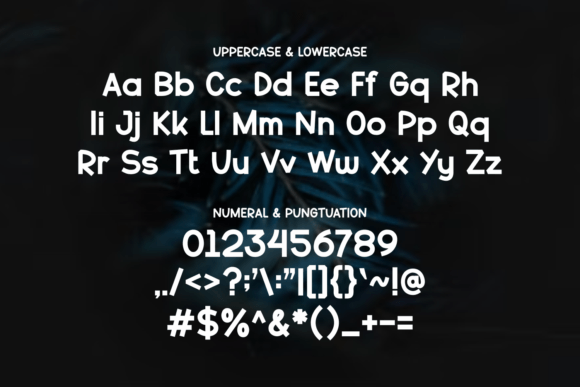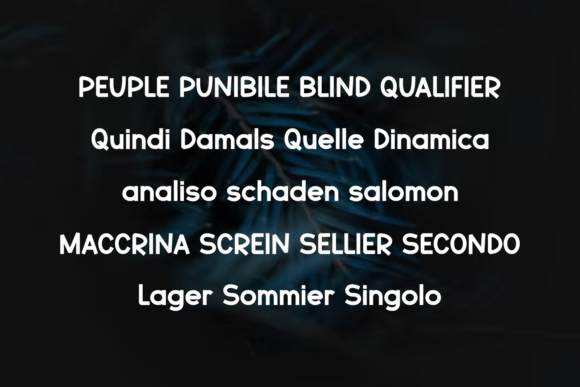
The Ultimate Guide to Bruks Font: Elevate Your Designs with this Modern Display Font
I’ll never forget the time I was working on a project for a client who needed a bold, eye-catching font to make their brand stand out. I scoured the internet for hours, trying out different fonts, but nothing seemed quite right. That was until I stumbled upon Bruks Font. This cool and modern display font has been a game-changer for my designs, and I’m excited to share its awesomeness with you! 😊
An Honest Review of Bruks Font
What I Love About Bruks Font ✨
- 💥 **Versatility**: No matter the topic or theme, Bruks Font seems to fit right in. Whether I’m designing a logo, a brochure, or a social media post, this font elevates my creation.
- ✅ **Readability**: Despite being a display font, Bruks is surprisingly readable, even at smaller sizes.
- 🎨 **Customization**: With its range of OpenType features and glyphs, I can experiment with different styles and variations to match my design mood.
- ⚠️ **Limited use for body text**: While Bruks is amazing for headlines and titles, it’s not the best choice for longer blocks of text. Stick to a more traditional font for those sections.
- 🤔 **Some characters may require manual kerning**: Depending on the specific characters used, manual kerning might be necessary to achieve optimal spacing.
The Story Behind Bruks Font
Bruks Font was designed with the goal of creating a versatile, modern display font that could be used across various design applications. Inspired by the urban landscape and modern typography trends, Bruks Font’s creator aimed to craft a font that would be both stylish and functional.
| Font Name | Bruks Font |
| Author | lelevien |
| What makes Bruks Font unique? | Bruks Font’s unique blend of modernity and versatility makes it an excellent choice for a wide range of design projects. |
| Is Bruks Font suitable for body text? | While Bruks Font is amazing for headlines and titles, it’s not the best choice for longer blocks of text. Stick to a more traditional font for those sections. |